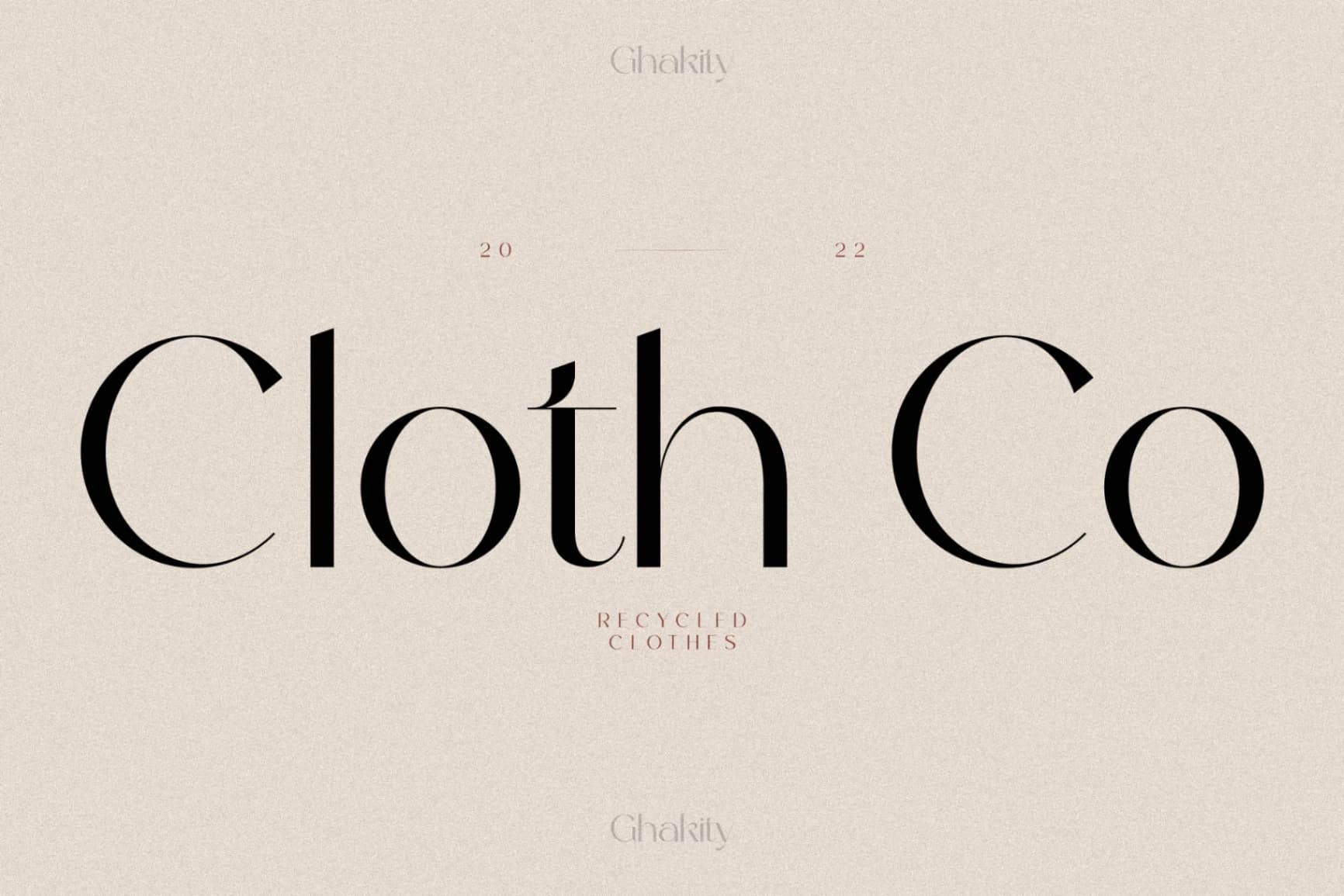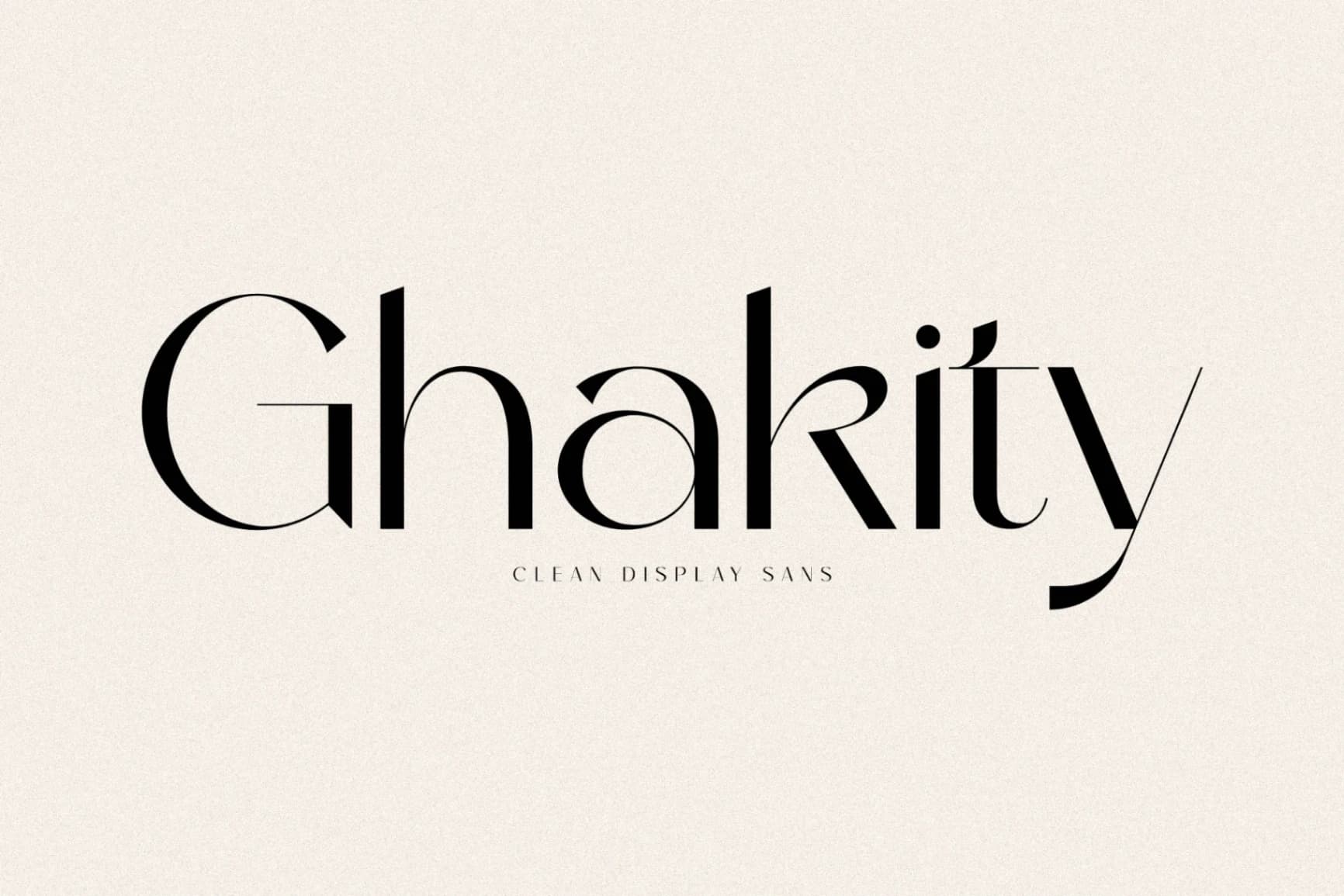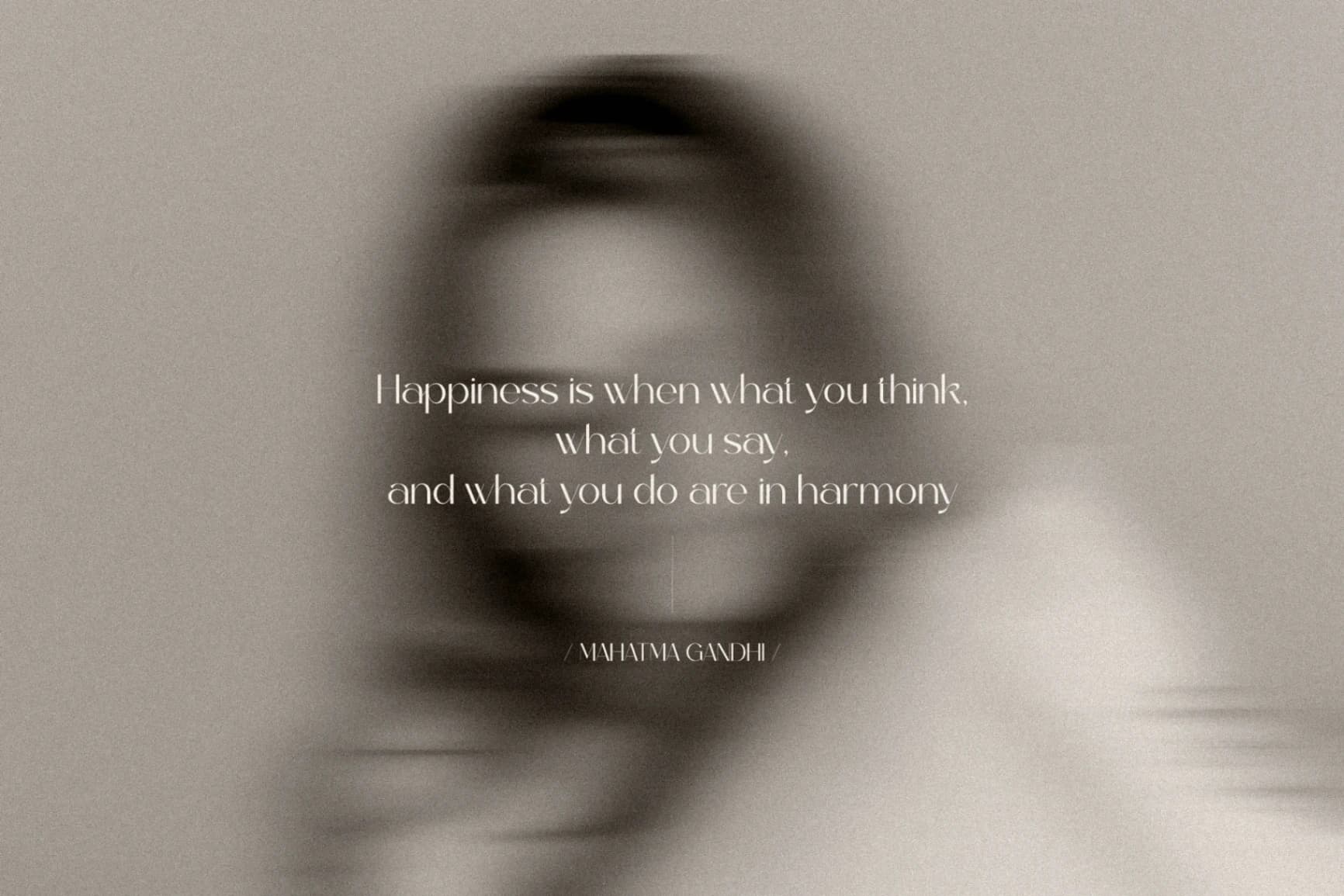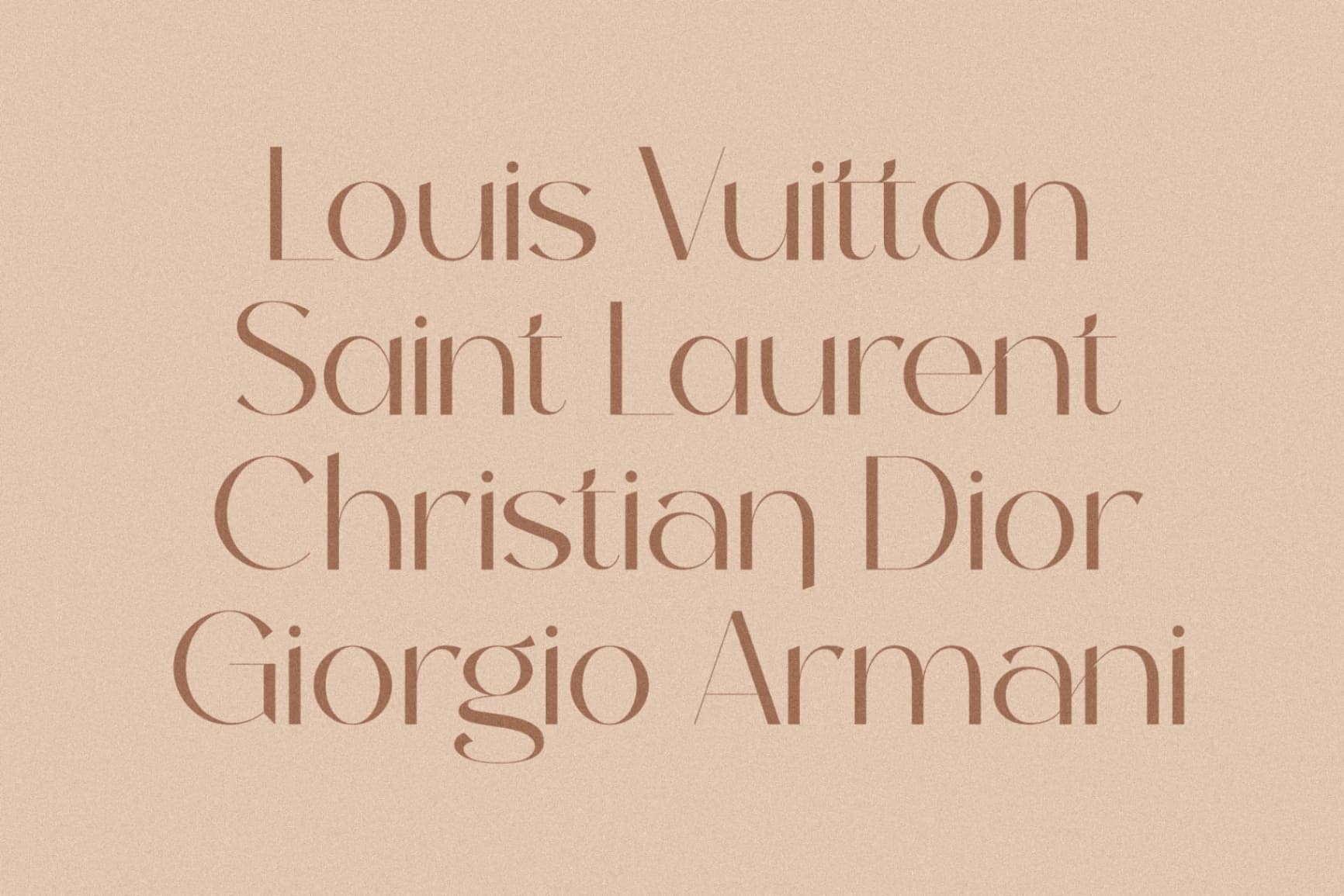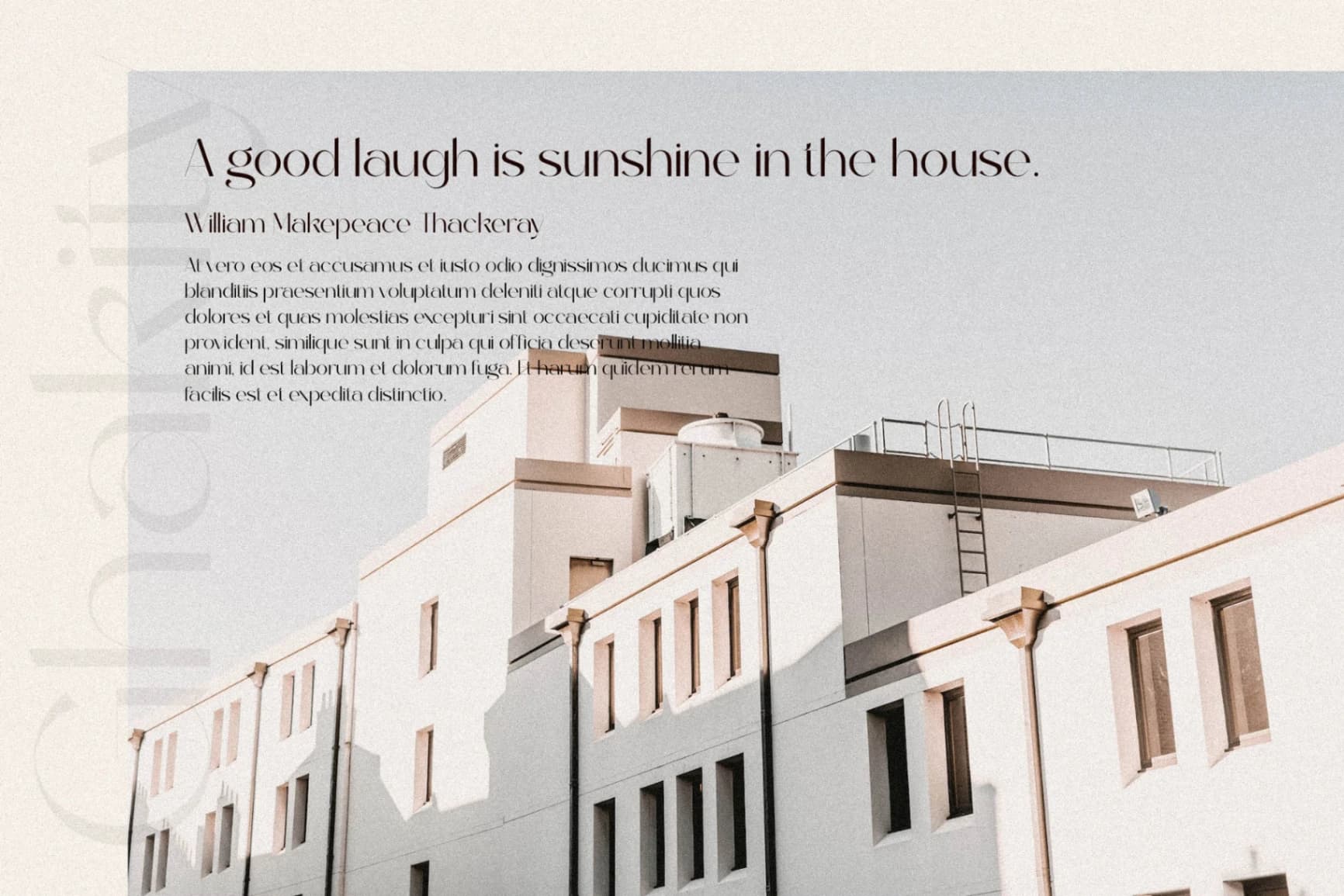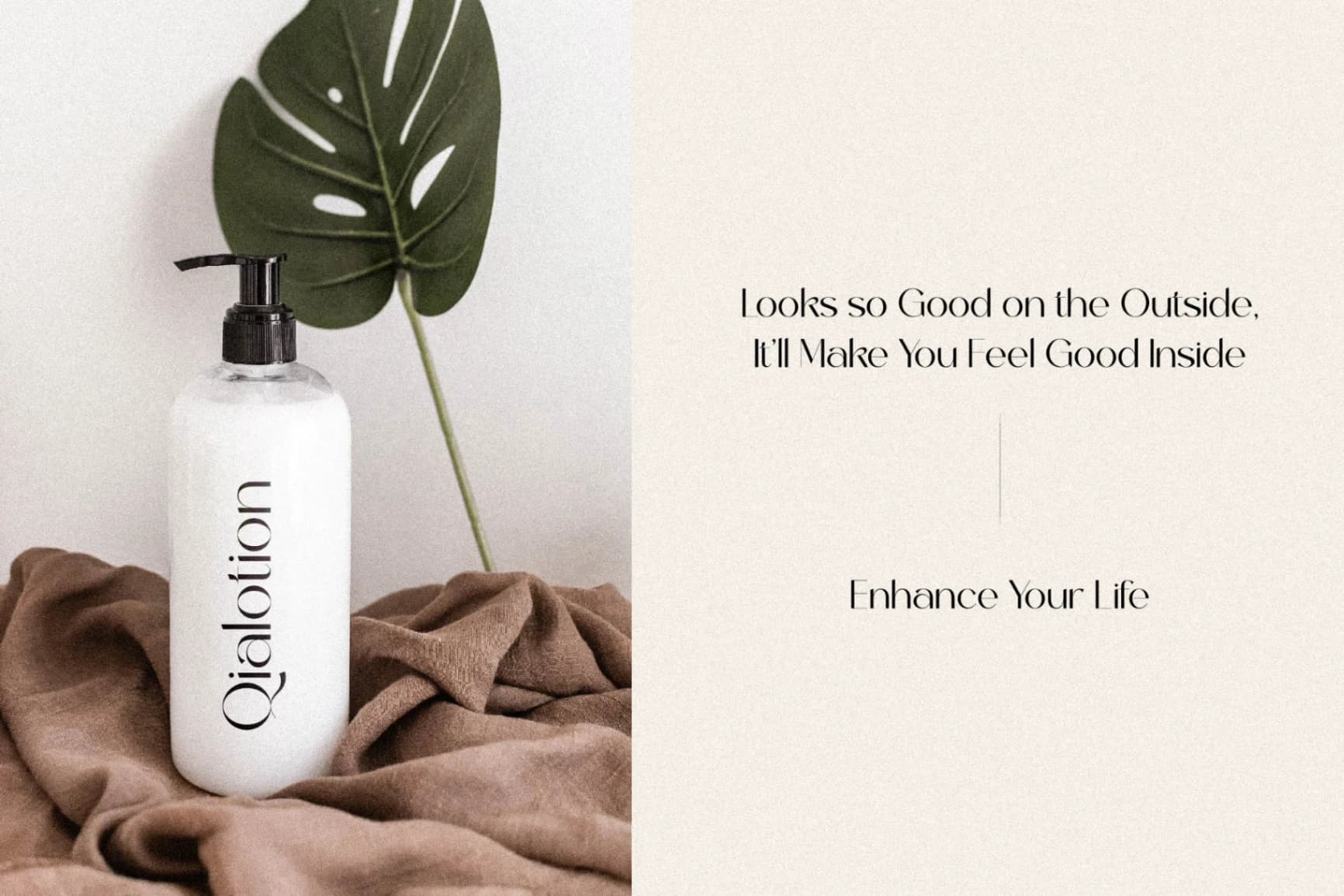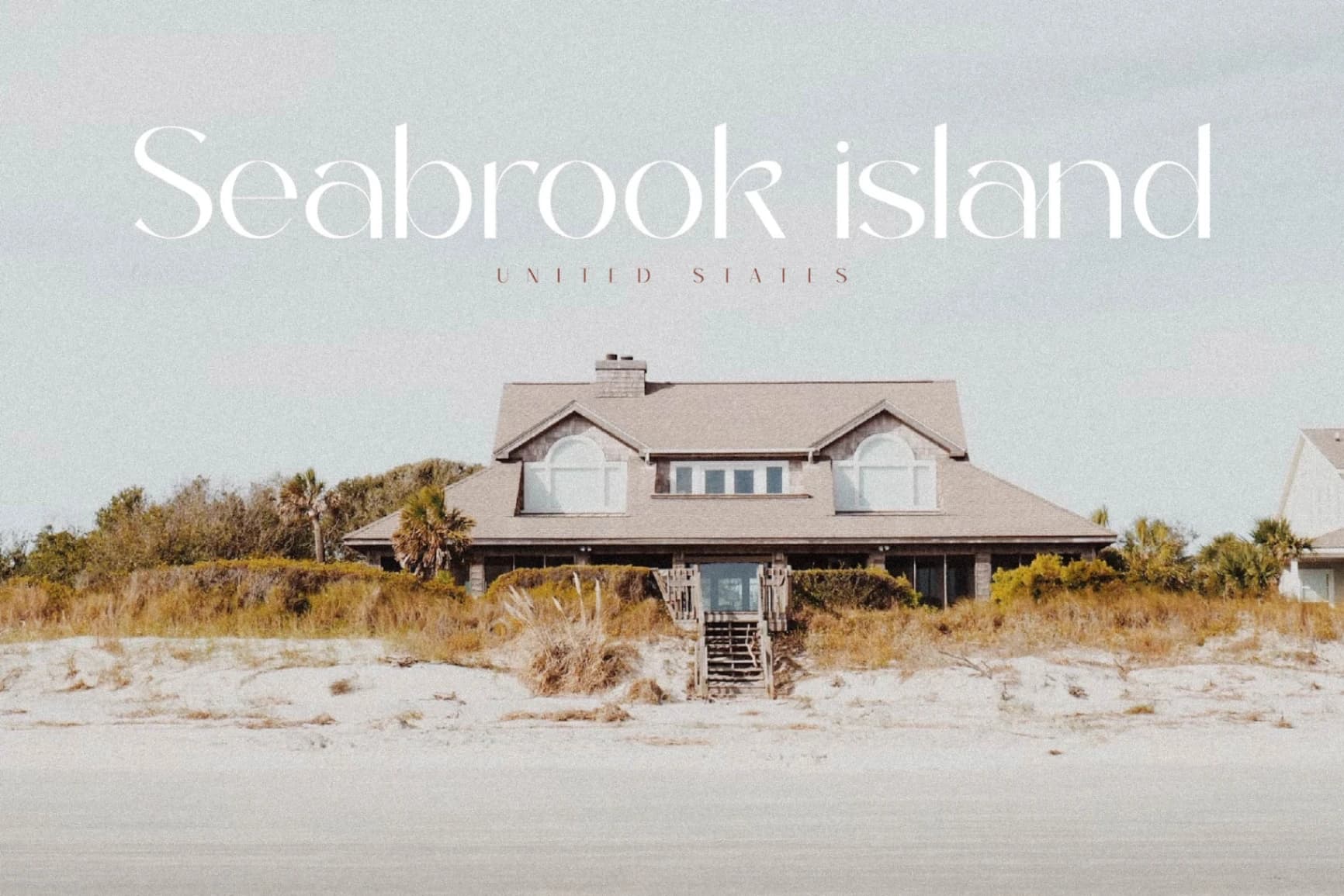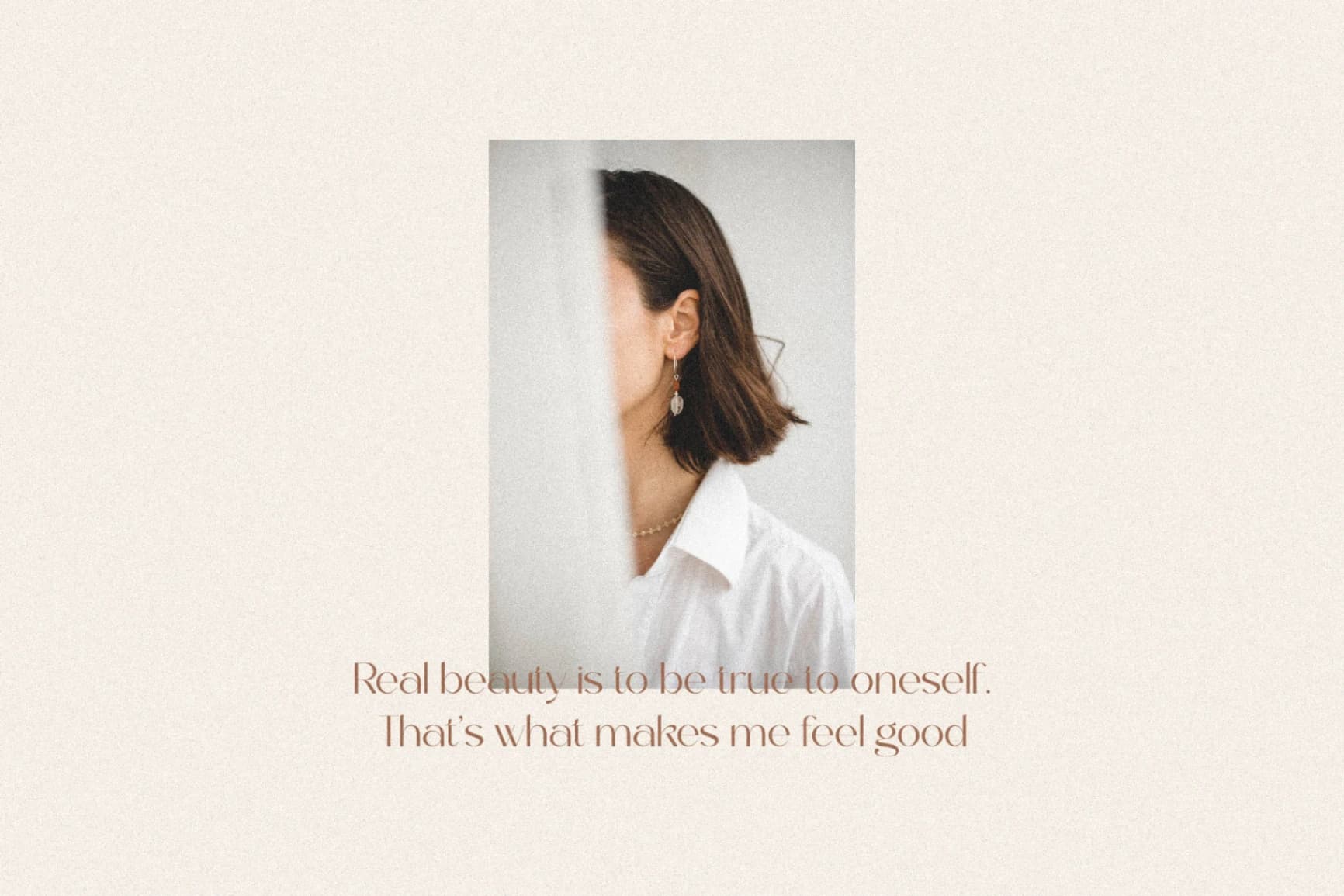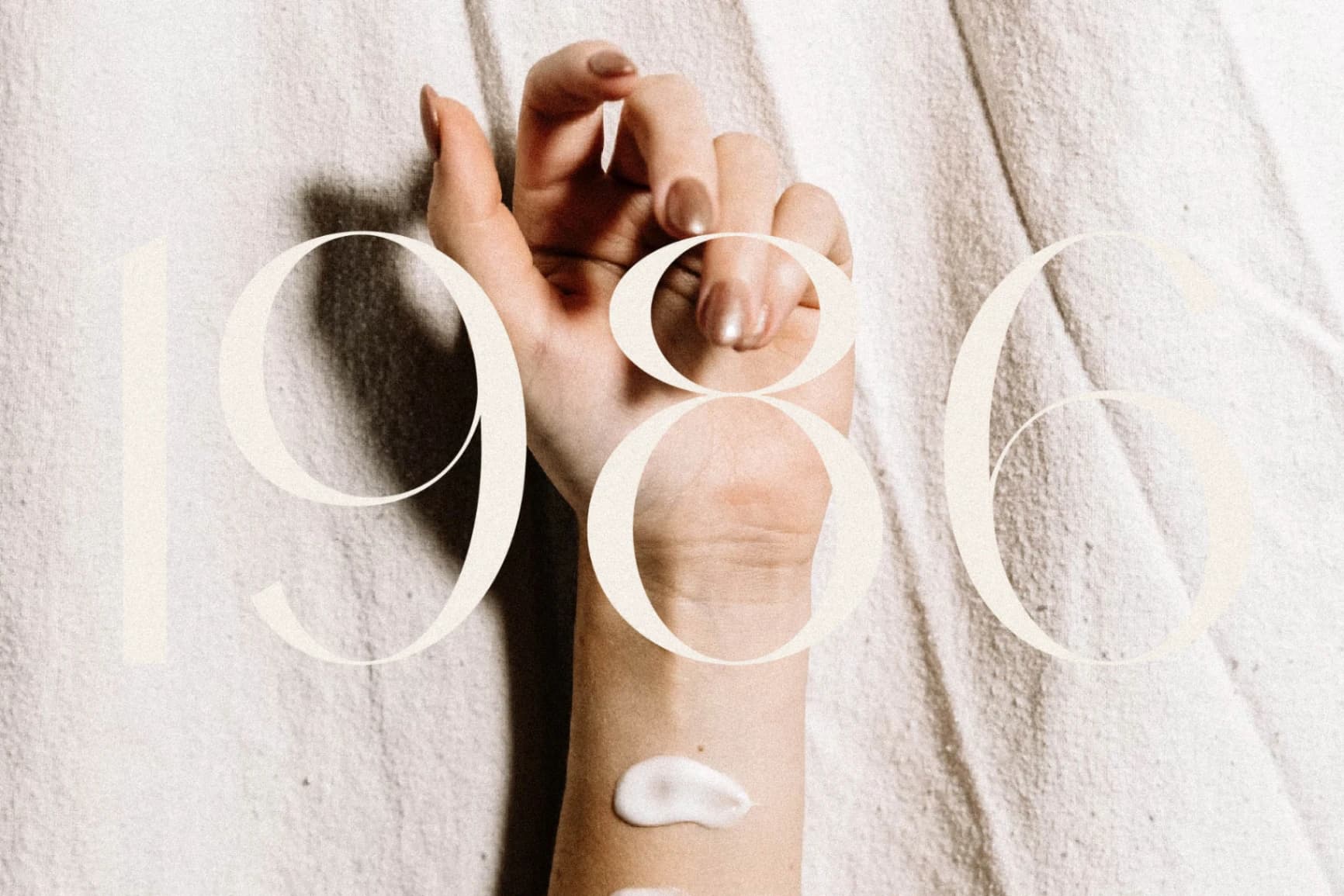
Ghakity - Clean Display Sans
Elevate your design aesthetic with the striking presence of Font Ghakity - Clean Display Sans Sans Serif. This typeface expertly merges the clarity of a modern sans-serif structure with the dramatic flair of a high-contrast display font, creating a truly memorable visual identity. Its precision-engineered letterforms feature thin, elegant hairlines juxtaposed against robust verticals, achieving a sophisticated balance that instantly communicates premium quality and refined taste.
Designed for uncompromising clarity, Font Ghakity - Clean Display Sans Sans Serif ensures exceptional readability even in complex display settings. Its careful kerning and balanced weight distribution guarantee impactful headlines across digital and print media, maintaining a crisp, clean appearance at large sizes. With its extensive multilingual support, Font Ghakity - Clean Display Sans Sans Serif adapts seamlessly across global markets, making it incredibly versatile for international projects requiring comprehensive linguistic coverage.
Capture the essence of modernity and luxury. Font Ghakity - Clean Display Sans Sans Serif is the quintessential choice for projects demanding an air of exclusivity and high-end design. It is perfectly suited for luxury branding, bespoke product packaging, prestige magazine layouts, fashion advertisements, and sophisticated editorial design. Deploy this font to instantly imbue your client work with unrivaled sophistication and a compelling, authoritative voice.
Make an unforgettable statement with typography that commands attention. Offering superior aesthetics and professional-grade functionality, Font Ghakity - Clean Display Sans Sans Serif provides designers with the perfect tool to transition a creative concept into a visual masterpiece. Invest in this essential display font to ensure your next creative venture stands out with timeless elegance and modern design precision.